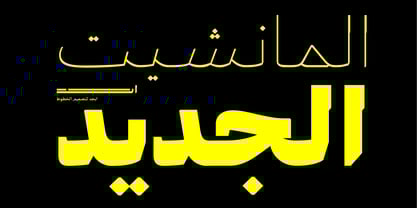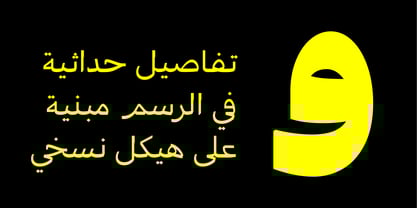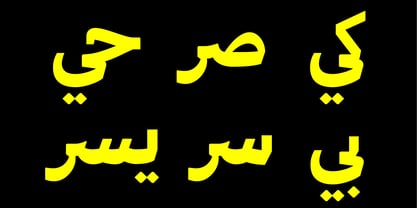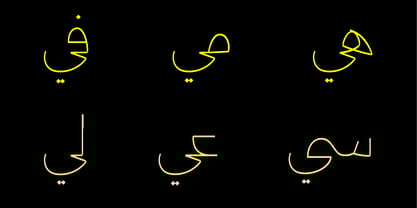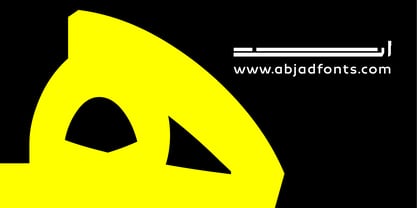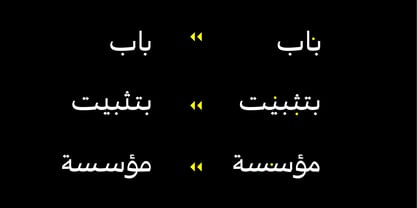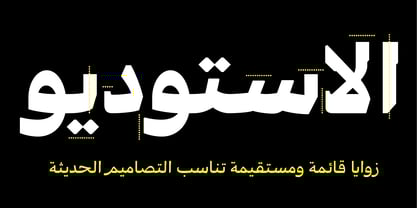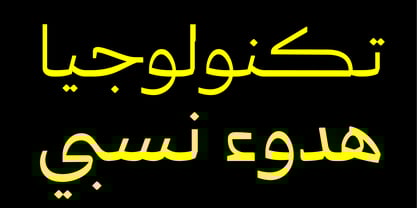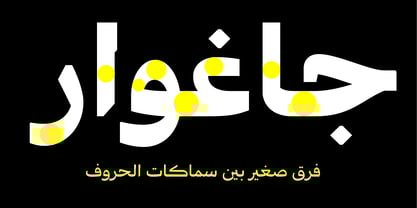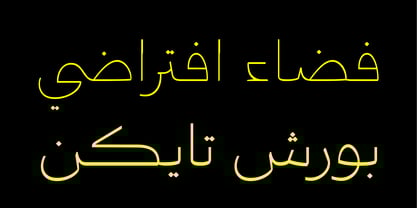
Manchette Modern
by Abjad
The Manchette Modern Font Family was designed by Ali Almasri and published by Abjad. Manchette Modern contains 10 styles and family package options.
The modern cut of the Manchette family which was inspired by the hand-written Naskh newspaper headlines during the 60s-70s era in the Arab world. The word "Manchette" is a french word, that means headline. It was used mainly by the Egyptian calligraphers and designers.